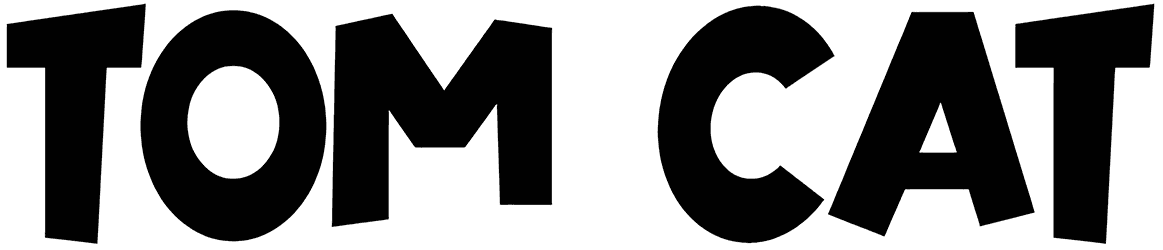
A fun cartoon font, Urban Pollution is perfect for adding a playful touch to your designs. This comic font is meant to make a statement with its striking appearance. The absence of lowercase letters and some numbers is perhaps the only drawback of this font.
Font By Gassstype Studio